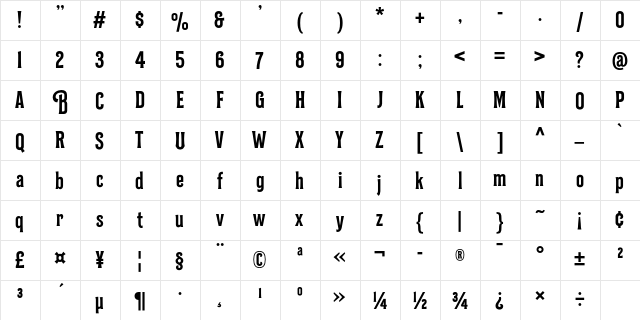
Bilcase Demo Demo
| Foundry | Ilham Herry Type Supply |
| Designer | Ilham herry |
Design Context for Bilcase Demo Typeface
Bilcase Demo is a composed and adaptable typeface that performs quietly and consistently across a wide range of design contexts.